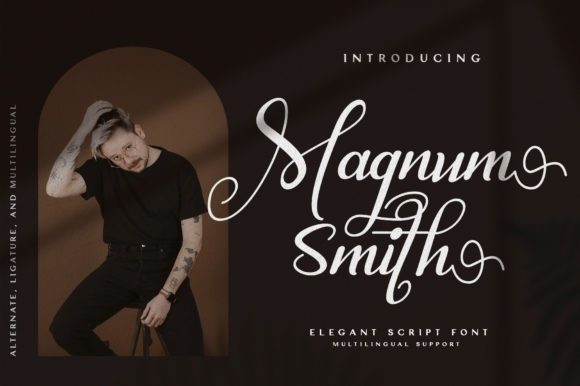
Magnum Smith Font
Magnum Smith Script Font is an elegant script font with a contemporary atmosphere and impeccable form, inspired by timeless classic calligraphy. Not too thin and not too thick, balanced and varied, this font was designed to enhance the beauty of your projects. Magnum Smith is PUA encoded which means you can access all glyphs and swashes with ease!